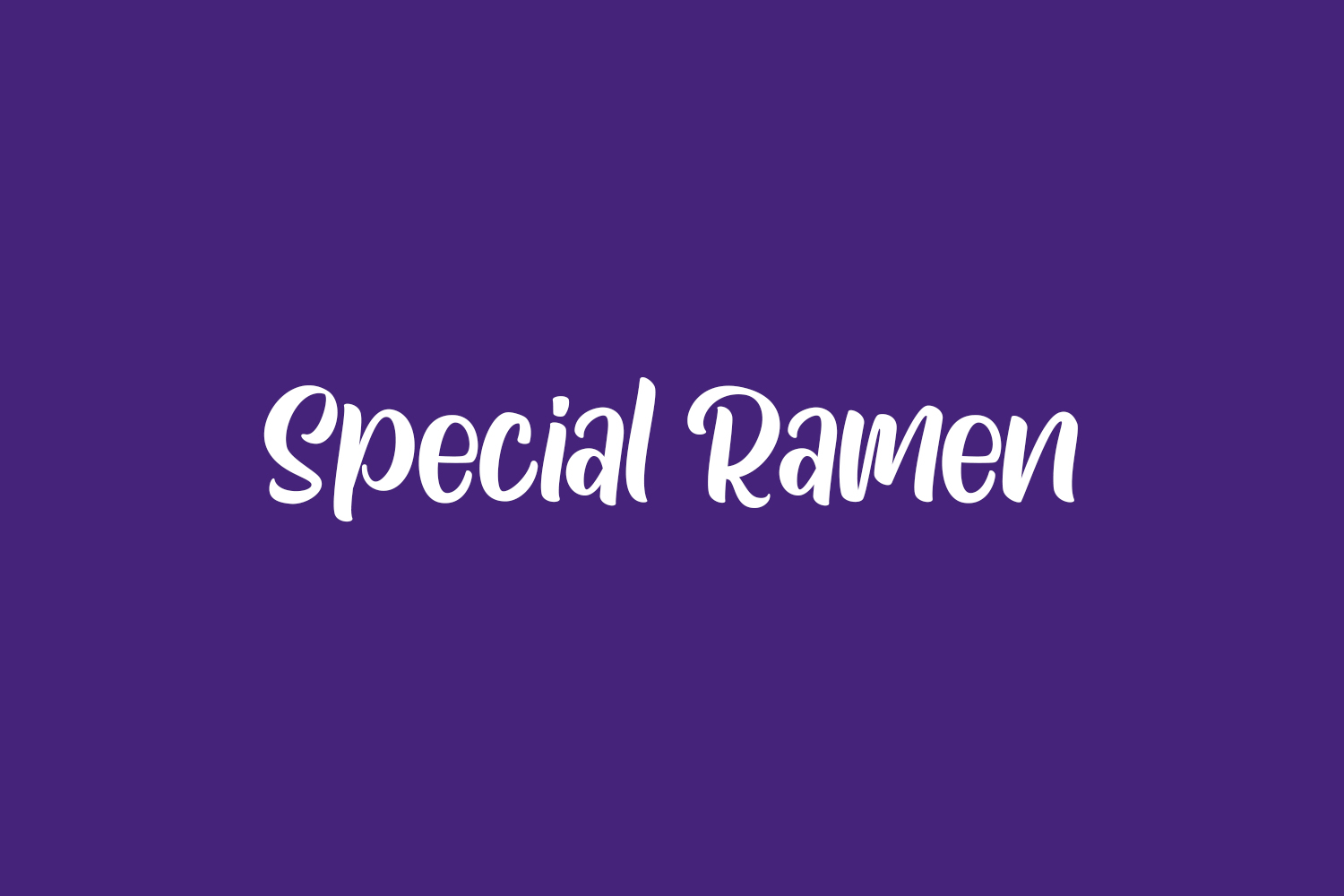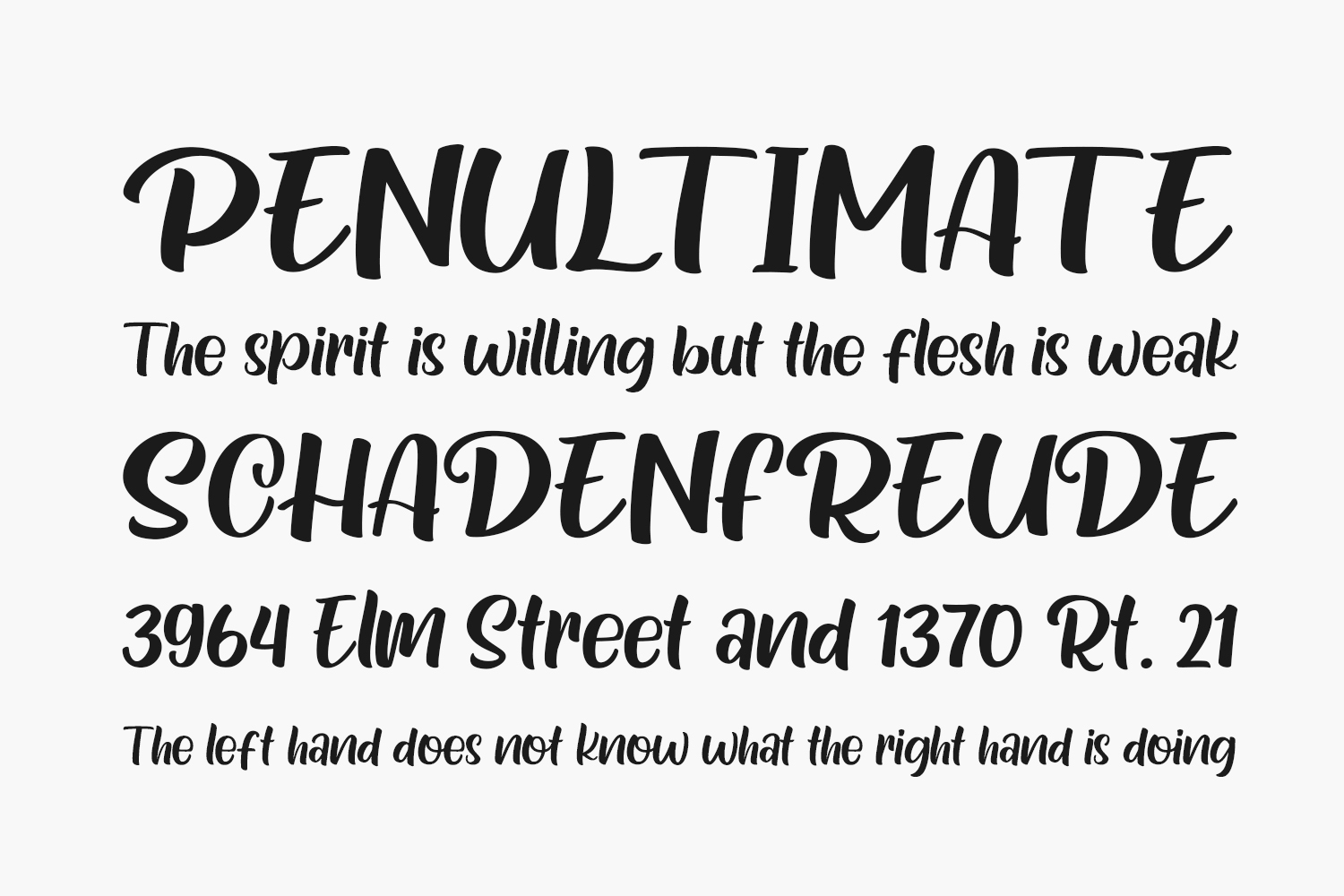
Special Ramen Free Font is a cute, playful, and relaxed script font. Whether you are using it for cartoon-related designs, children’s games, quotes, titles, brand names, book covers, posters, or just any creation that requires a touch of beauty, this font is a great choice. Special Ramen Free Font was designed by Andrimada Creative and is free for personal use only. Please purchase the full version for commercial use.